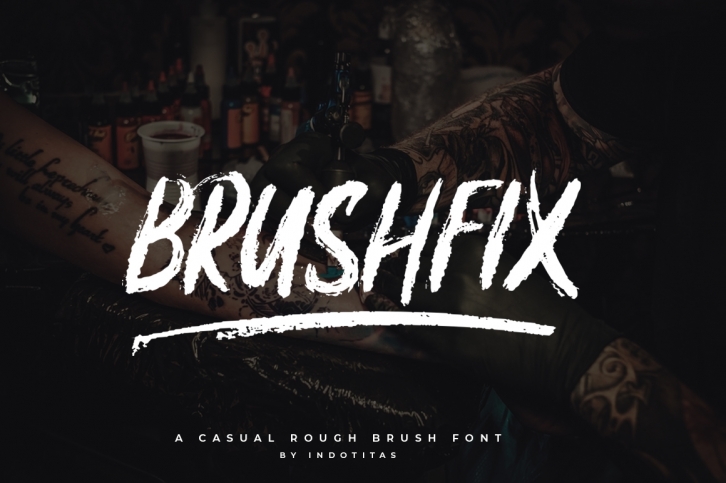
Brushfix is a great font that was designed by Indotitas. Imagine the amount of combinations you can create using this font! The archive is 11.75 MB and it was released on March 13, 2019. Brushfix looks beautiful on wedding invitations, greeting cards, logos, posters, labels, t-shirt designs, logos, business cards and is perfect for use in ink or watercolor works, fashion, magazines, packaging and food menus, children's books and more!